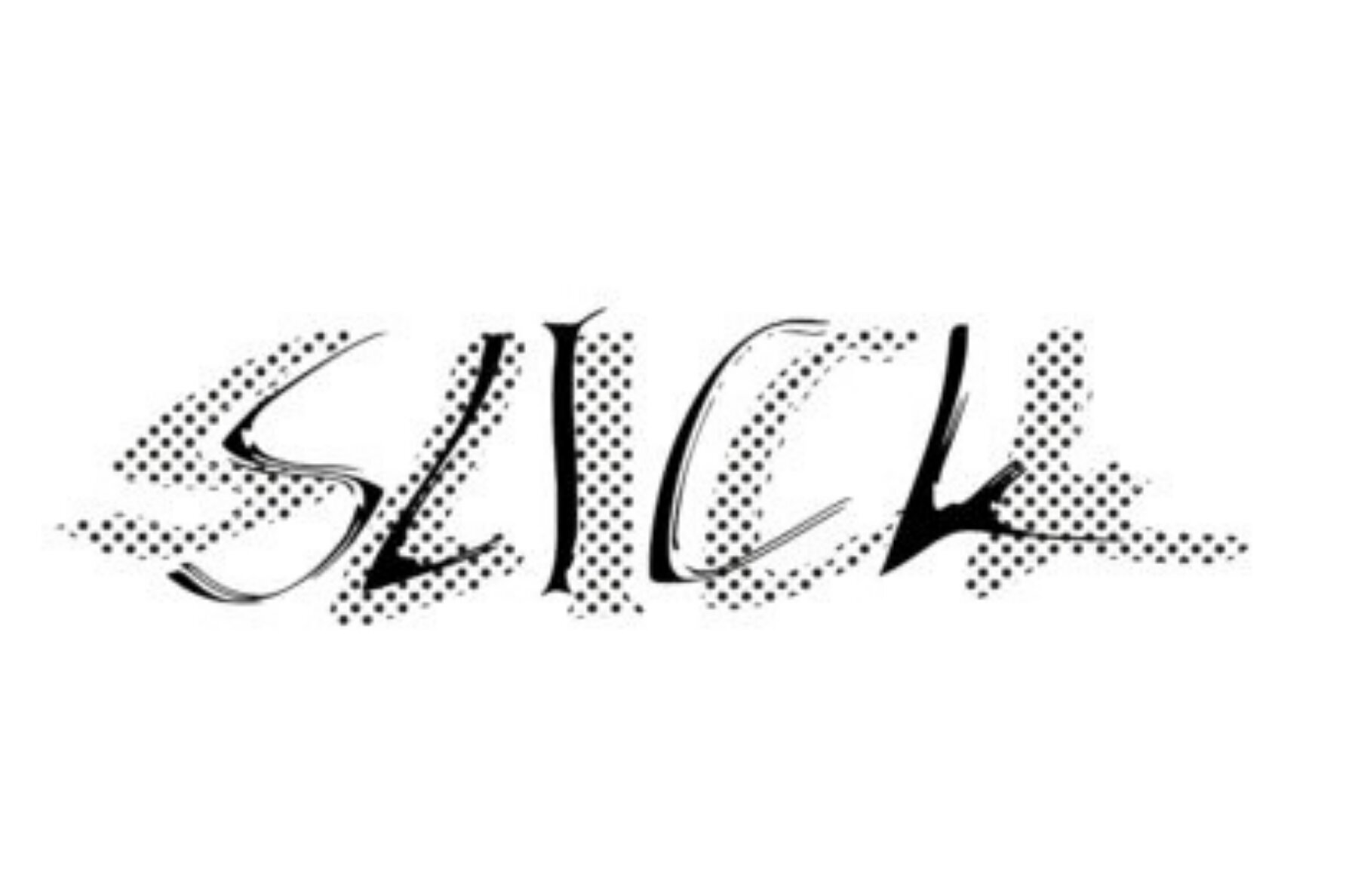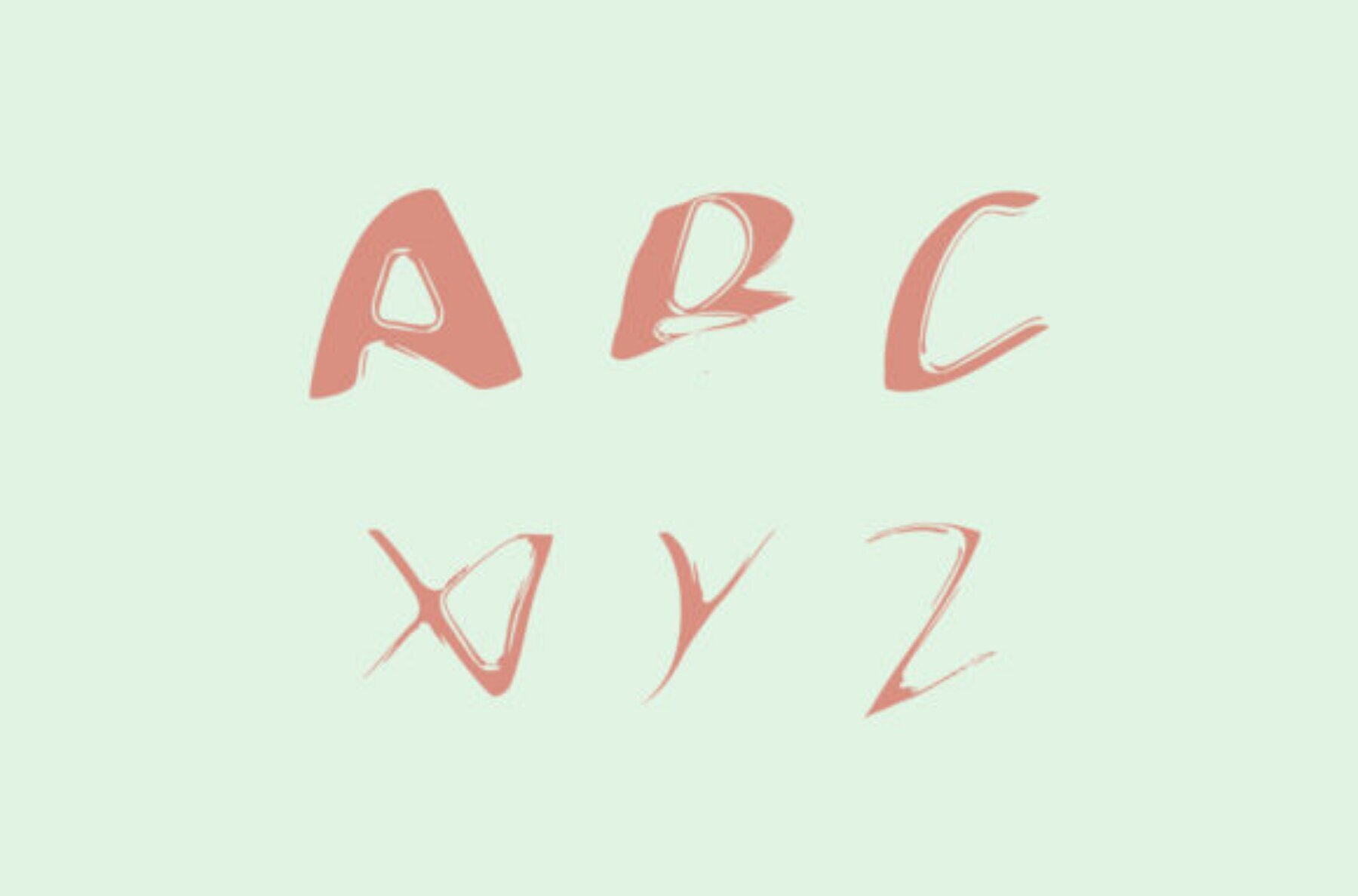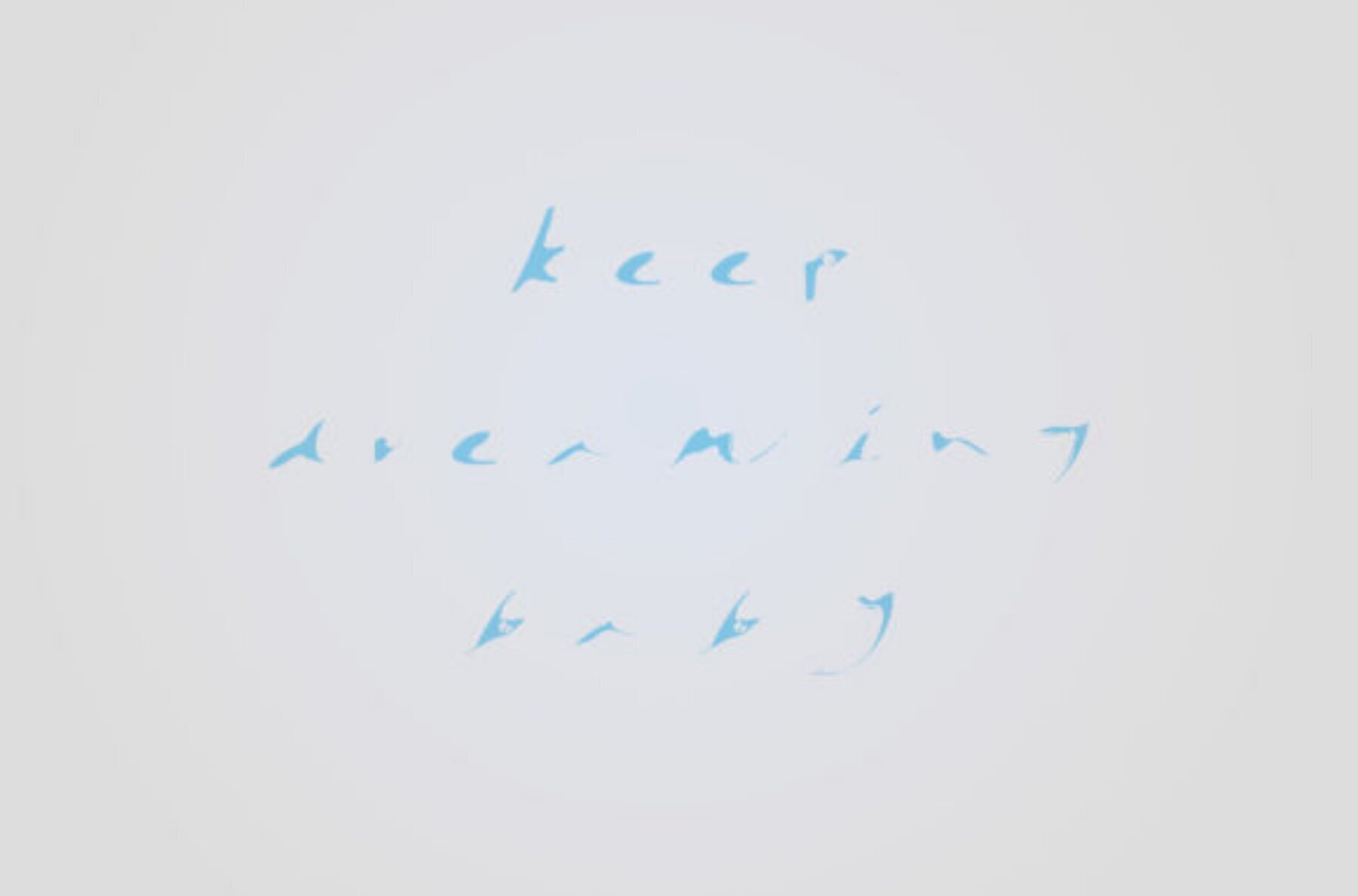
Slick Font
Introducing Slick, a unique typeface that exudes a distinctive oily and slimy appearance, perfect for creating eye-catching designs. Ideal for projects needing a bold and unconventional style, Slick provides a visually engaging element that grabs attention.Slick Font: A Bold Statement in Typography